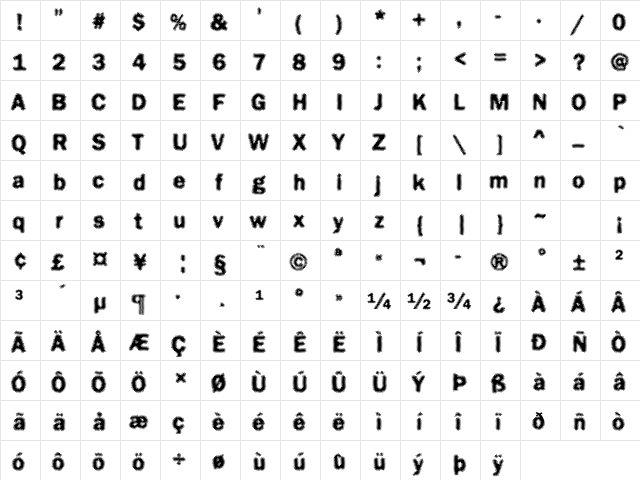
Funky30 Becker Regular Font Preview
Funky30 Becker Regular
Funky30 Becker Regular Font Details
Design Context for Funky30 Becker Typeface
Funky30 Becker has an approachable, lighthearted character — its loose, expressive forms are well-suited to children's content, casual branding, and fun-first design.
Font Pairing: Pairs well with a rounded or humanist sans for body copy, maintaining the friendly tone without relying on Funky30 Becker to carry extended reading.
Pro Tip: Avoid using Funky30 Becker for long passages of text — it works best for headlines, labels, and short calls to action.